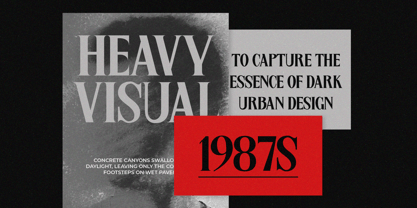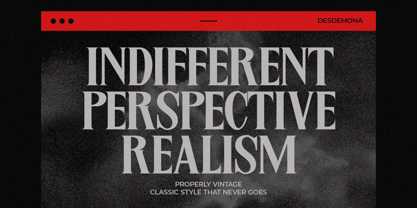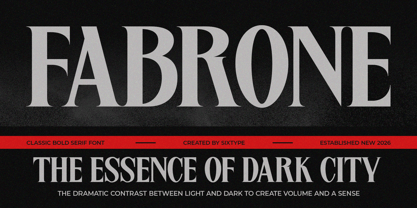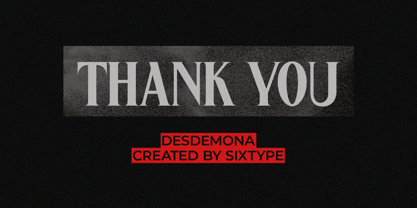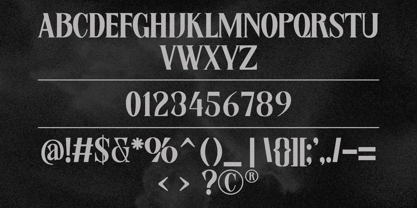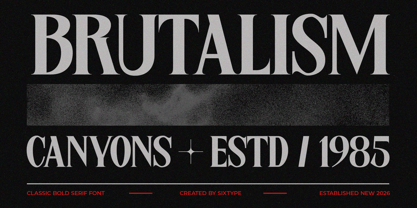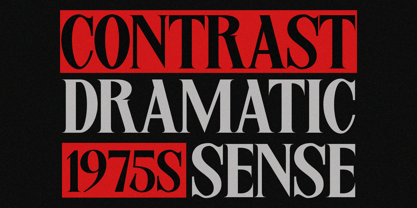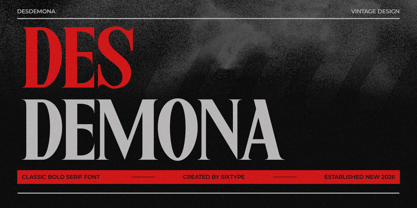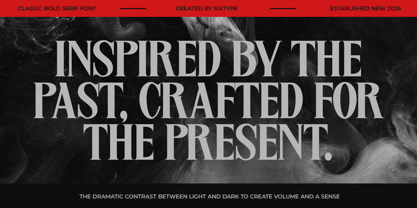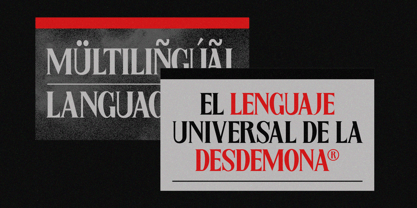
Desdemona
by Sixtype Foundry
Desdemona is a bold vintage display serif that draws inspiration from classic editorial typography, heritage branding, and timeless luxury design. With its high-contrast strokes, refined serifs, and elegant proportions, this typeface makes a dramatic statement, perfect for headlines, magazine covers, fashion campaigns, packaging, posters, book titles, and premium branding projects. Its sophisticated character shapes seamlessly blend old-world craftsmanship with contemporary precision, offering a distinctive visual voice that feels both nostalgic and modern. Whether utilized for cinematic layouts, luxury identities, cultural publications, or impactful typography, Desdemona adds depth, elegance, and enduring character to every design.